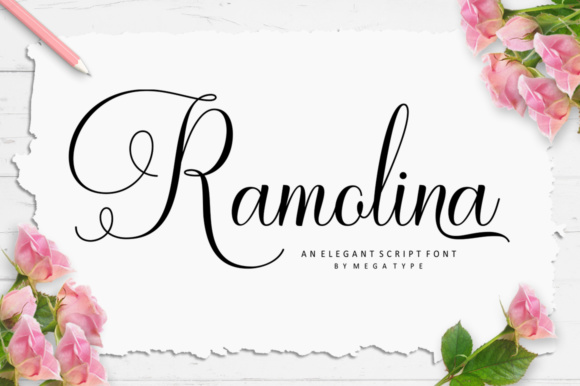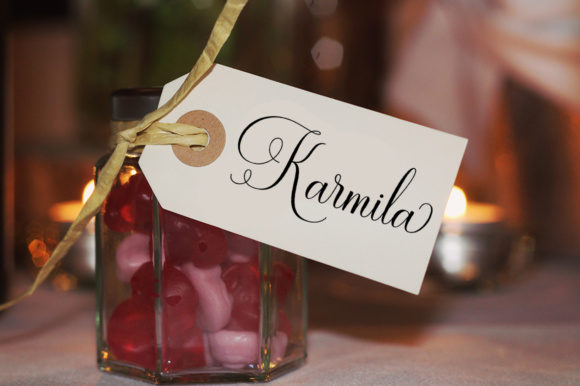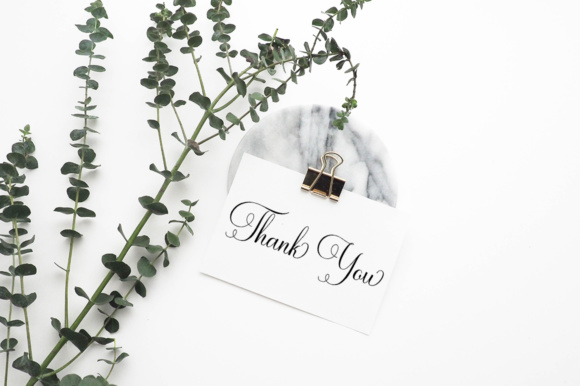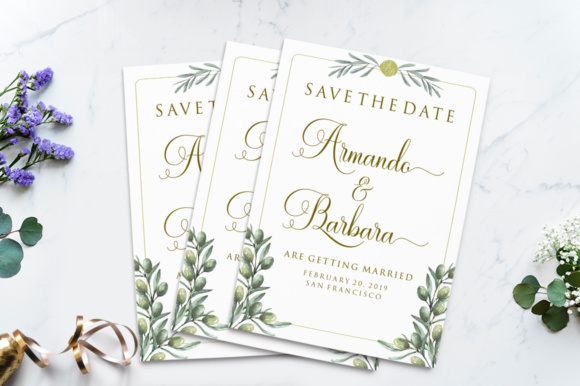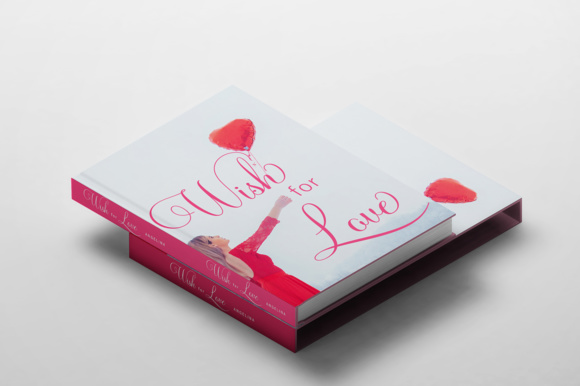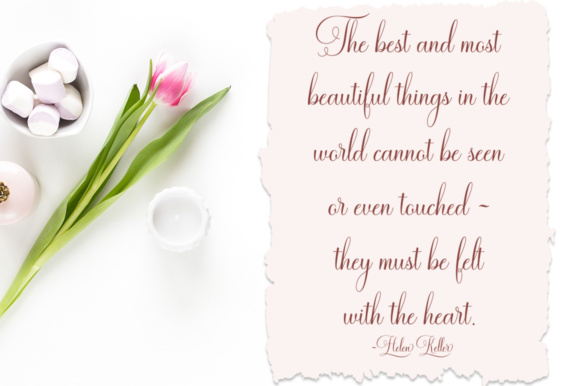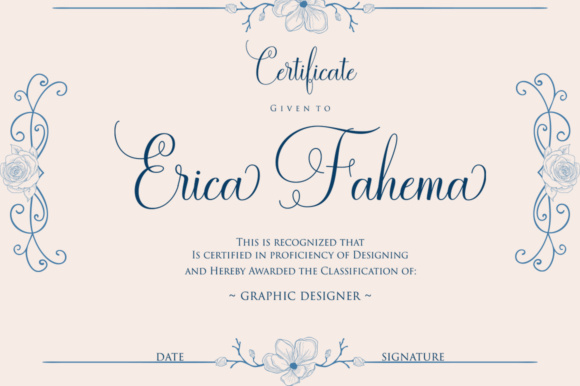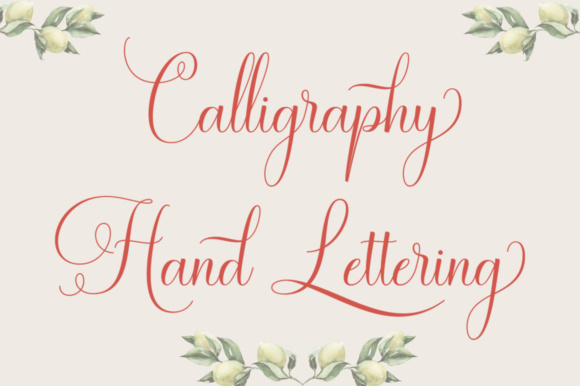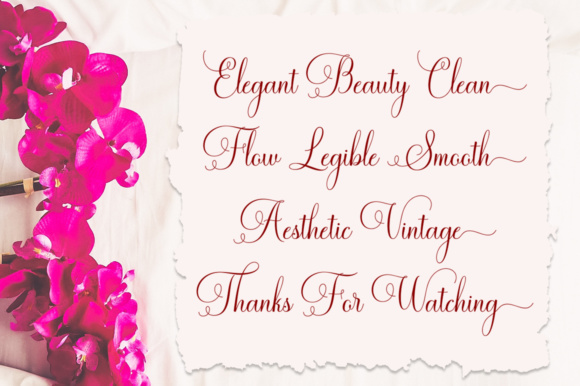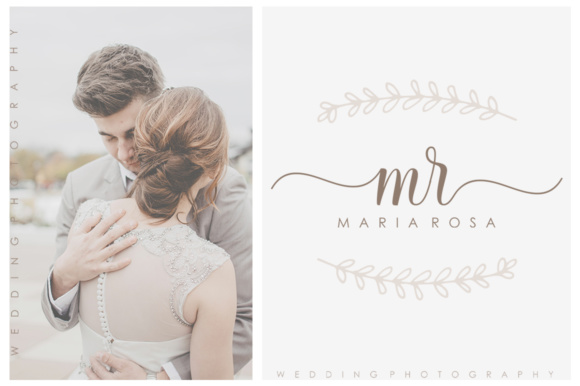
Ramolina Script Font
About Ramolina Script Font
Ramolina is an elegant calligraphy script font that comes with lovely alternates characters. It’s a mix from copperplate calligraphy and handlettering style. Designed to convey style elegance. Ramolina is attractive like a smooth, elegant, clean, feminine, sensual, glamorous, simple and highly legible typeface. Its classic style is perfect to be applied in any type of formal pieces such invitations, labels, certificate, menus, Logos, fashion, make up and much more!